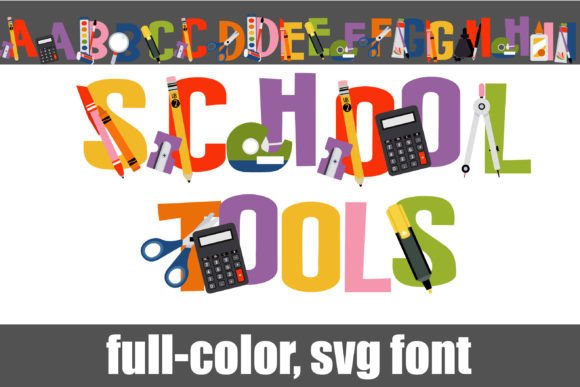
Embark on an artistic voyage back to school with School Tools Font, a vibrant and playful font family that's bursting with color and cheerfulness. Illustration Ink, the creative minds behind this whimsical font, have meticulously crafted School Tools Font to capture the joyous spirit of learning and exploration.
Step into a world where letters and numbers dance merrily across the page, adorned with an array of school supplies. From pencils and rulers to globes and backpacks, every character in this font carries a piece of the classroom magic, igniting a spark of nostalgia and excitement in your heart.
Unleash your creativity and let your imagination soar as you utilize School Tools Font to design captivating posters, eye-catching flyers, or personalized greeting cards. The possibilities are endless with this versatile font family.
Dive into the depths of your imagination and create stunning visuals that pop with color and personality. Let School Tools Font transport you back to those cherished days of learning and discovery, where dreams took flight and horizons expanded.
But wait, there's more! School Tools Font comes with an intriguing alternate version accessible through your system's character map. Unlock a hidden treasure trove of additional colors for each letter, expanding your creative palette and opening up new avenues for artistic expression.